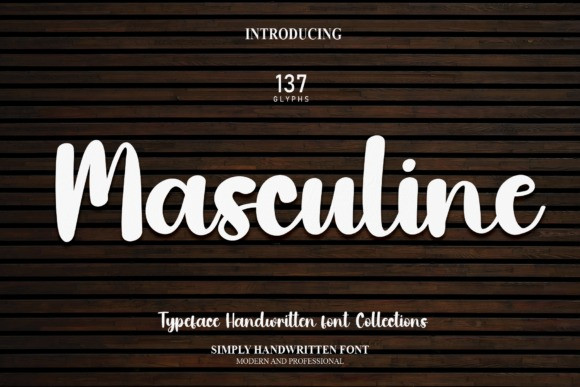
Masculine Font
Masculine Font is a trendy and chic handwritten font. Dainty and joyful, this font will be ideal for writing wedding invitations, cards or any other design that may need a romantic, personalized touch!